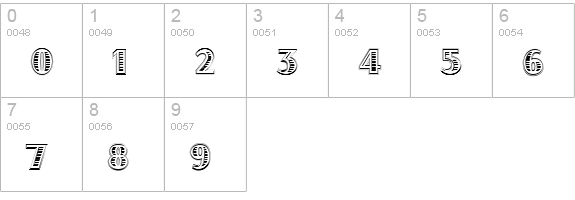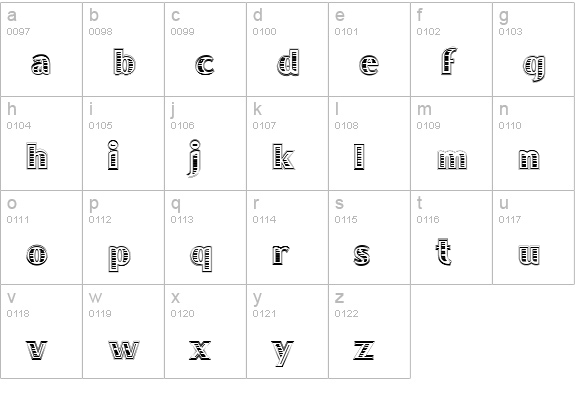
Boca Raton 4 Font Details
Boca Raton 4 font is a stylish and elegant typeface that exudes sophistication and charm. With its sleek lines and modern aesthetic, this font is perfect for adding a touch of class to any design project. Whether you're creating a logo, website, or marketing materials, Boca Raton 4 font will elevate your design to the next level. This versatile font is free to download at FontsMarket.com, making it accessible to designers of all skill levels. Its clean and crisp letterforms make it easy to read and perfect for both print and digital applications. Impress your audience with the timeless beauty of Boca Raton 4 font, and watch your designs come to life with a touch of elegance and flair.